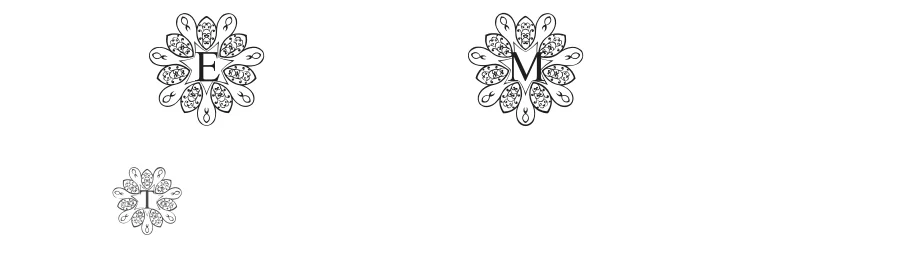
About Intellecta Monograms Random Samples Four Font
Intellecta Monograms Random Samples Four, by Intellecta Design
Intellecta Monograms Random Samples Two is a random and limited set version of Intellecta Monograms, an extensive collection of fonts ammouting thousands of intrincated and vintage monograms, mainly in Victorian style, a Intellecta's best-seller over the last five years. To purchase the original fonts (alphabetical order of sets) and commercial licences, please, visit:
Intellecta Monograms Random Samples Four Font is a decorative font that shines as a display or heading face. Pair it with a clean sans-serif or serif font for body text β the contrast creates a clear hierarchy while the two styles stay balanced and easy to read.